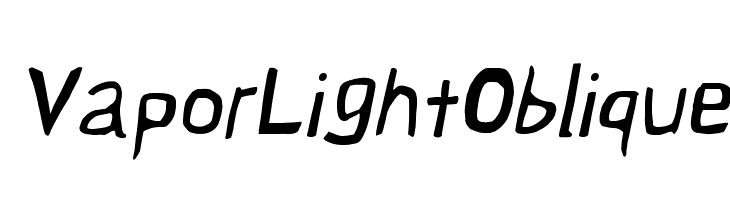
A modern, geometric sans-serif font with rounded edges and uniform width.
A bold, angular font with a playful and dynamic style.
A playful handwritten font with smooth, flowing lines and a casual style.
A playful, casual handwritten font with smooth, flowing lines and a friendly appearance.
A casual, handwritten-style font with a lively and personal touch.
A bold, modern sans-serif font with clean lines and strong presence.
A modern, bold italic font with smooth curves and a dynamic style.
A bold, geometric font with strong, angular lines and a modern aesthetic.
A dynamic and elegant script font with fluid, sweeping letterforms.
A classic serif font with bold strokes and high contrast, ideal for formal and sophisticated designs.
A playful, hand-drawn font with decorative uppercase and clean lowercase letters.
A casual, handwritten font with fluid and organic strokes.
A lively handwritten font with fluid, natural strokes and a playful aesthetic.
A bold, modern script font with dynamic slant and connected characters.
A bold, 3D italic font with a futuristic and dynamic style.
A bold, 3D font with a strong, industrial aesthetic.
A bold, condensed font with a geometric and modern style.
A bold, italic, and condensed font with a dynamic and modern style.
A bold, geometric font with a futuristic and commanding presence.
A bold, expanded, and italicized font with a modern, angular design.
Bold, italicized font with a gradient effect and dynamic style.
A bold, geometric font with a gradient effect created by horizontal lines.
A bold, italicized font with a dynamic and modern style.
A bold, italicized font with a futuristic and dynamic design.